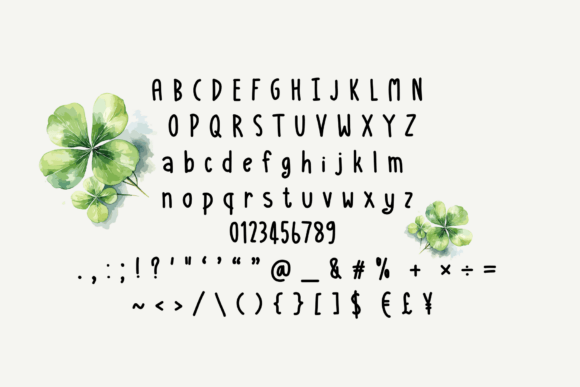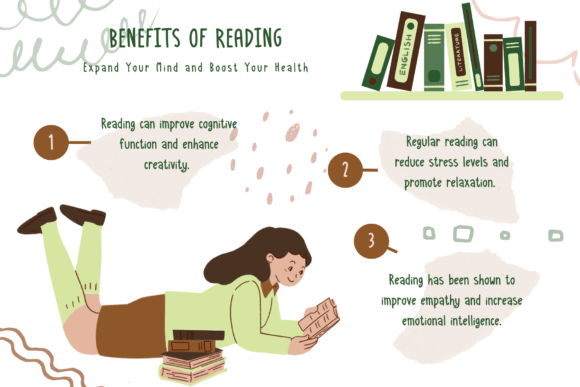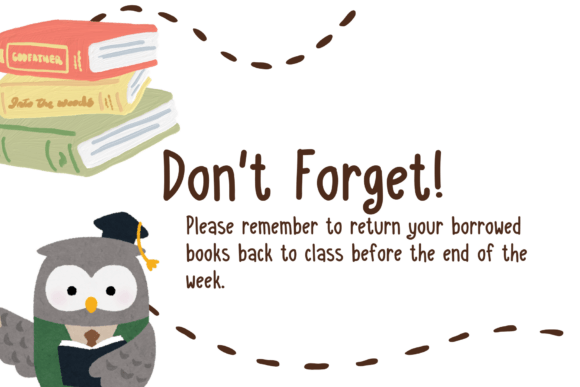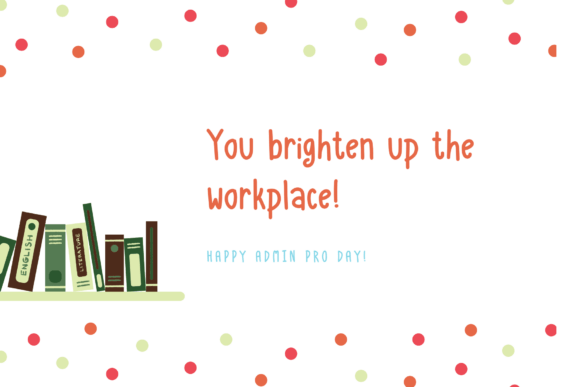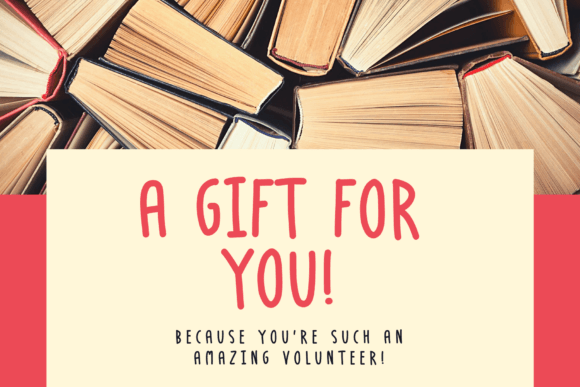
Introducing Good Luck Font: The Perfect Addition to Your Design Arsenal
Are you tired of using the same old fonts for your designs? Look no further! Good Luck Font is here to add a touch of personality and whimsy to your creations. This fun and cheerful handwritten font is perfect for designers and crafters who want to make their work stand out from the crowd.
What Makes Good Luck Font So Special?
Good Luck Font is a playful and smooth handwritten font that exudes friendliness and approachability. Its unique and charming lettering style makes it ideal for creating cards, posters, logos, and other designs that require a personal touch. Whether you’re designing for a client or working on a personal project, Good Luck Font is sure to bring a smile to people’s faces.
Key Features of Good Luck Font
- Playful and smooth letters: Good Luck Font features beautifully crafted letters that are both fun and elegant.
- Easy to read: Despite its playful nature, Good Luck Font is surprisingly easy to read, making it perfect for designs that require a clear message.
- Versatile: Good Luck Font can be used for a wide range of designs, from cards and posters to logos and branding materials.
- Handwritten charm: Good Luck Font has a unique, handwritten feel that adds a touch of personality to any design.
Why Designers and Crafters Love Good Luck Font
Good Luck Font has quickly become a favorite among designers and crafters, and for good reason. Its unique and charming style allows designers to create truly one-of-a-kind designs that stand out from the crowd. Whether you’re creating custom cards, posters, or logos, Good Luck Font is the perfect choice for anyone looking to add a touch of personality to their work.
How to Use Good Luck Font in Your Designs
Using Good Luck Font in your designs is easy! Here are a few ideas to get you started:
- Create custom cards: Use Good Luck Font to create one-of-a-kind greeting cards for special occasions.
- Design eye-catching posters: Good Luck Font is perfect for creating posters that require a bold and playful font.
- Develop a unique brand identity: Use Good Luck Font to create a custom logo or branding materials that reflect your personality and style.
Tips and Tricks for Getting the Most Out of Good Luck Font
Here are a few tips and tricks for getting the most out of Good Luck Font:
- Experiment with different colors: Good Luck Font looks great in a variety of colors, so don’t be afraid to experiment and find the perfect hue for your design.
- Pair with other fonts: Good Luck Font pairs well with a variety of other fonts, so try combining it with other styles to create a unique look.
- Use it sparingly: While Good Luck Font is perfect for adding a touch of personality to your designs, it’s best used sparingly. Try using it as an accent font to add emphasis to certain elements of your design.
In conclusion, Good Luck Font is a fun and cheerful handwritten font that’s perfect for designers and crafters who want to add a touch of personality to their work. Its playful, smooth letters make it easy to read and perfect for creating cards, posters, logos, and other designs that require a personal touch. With its versatility, charm, and ease of use, Good Luck Font is sure to become a staple in your design arsenal.